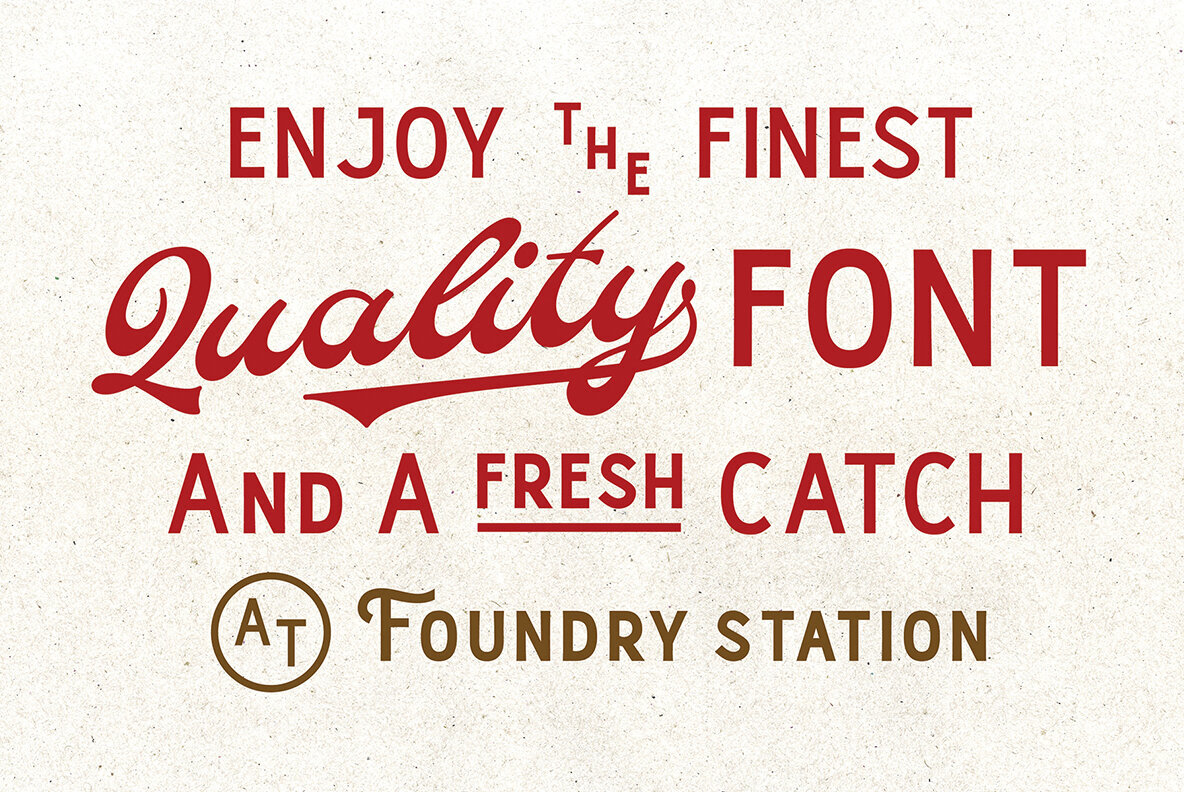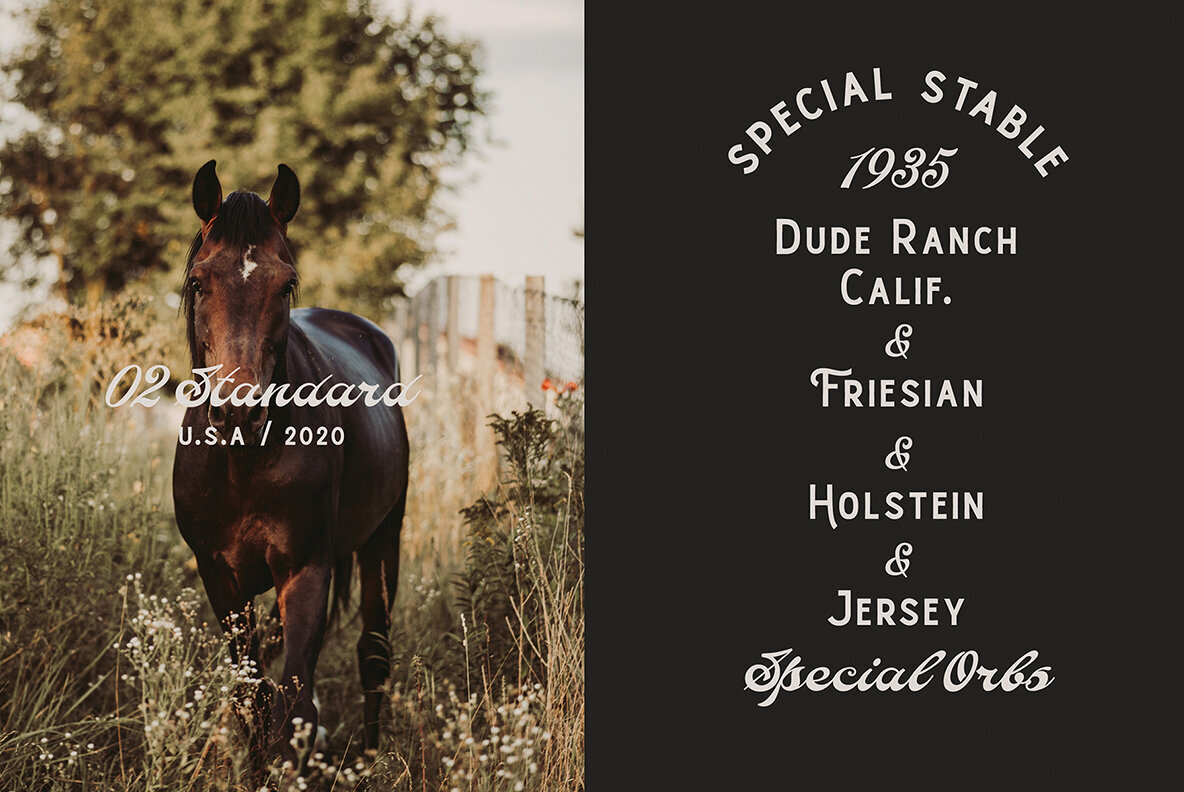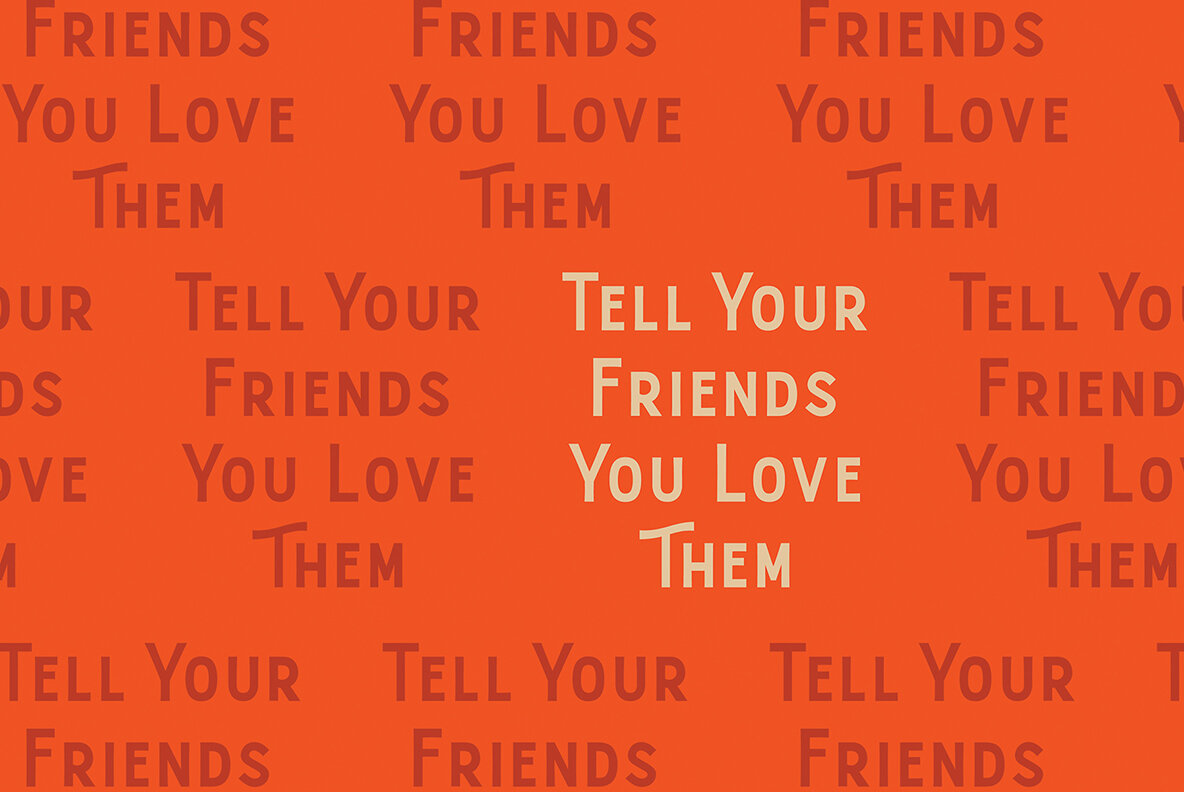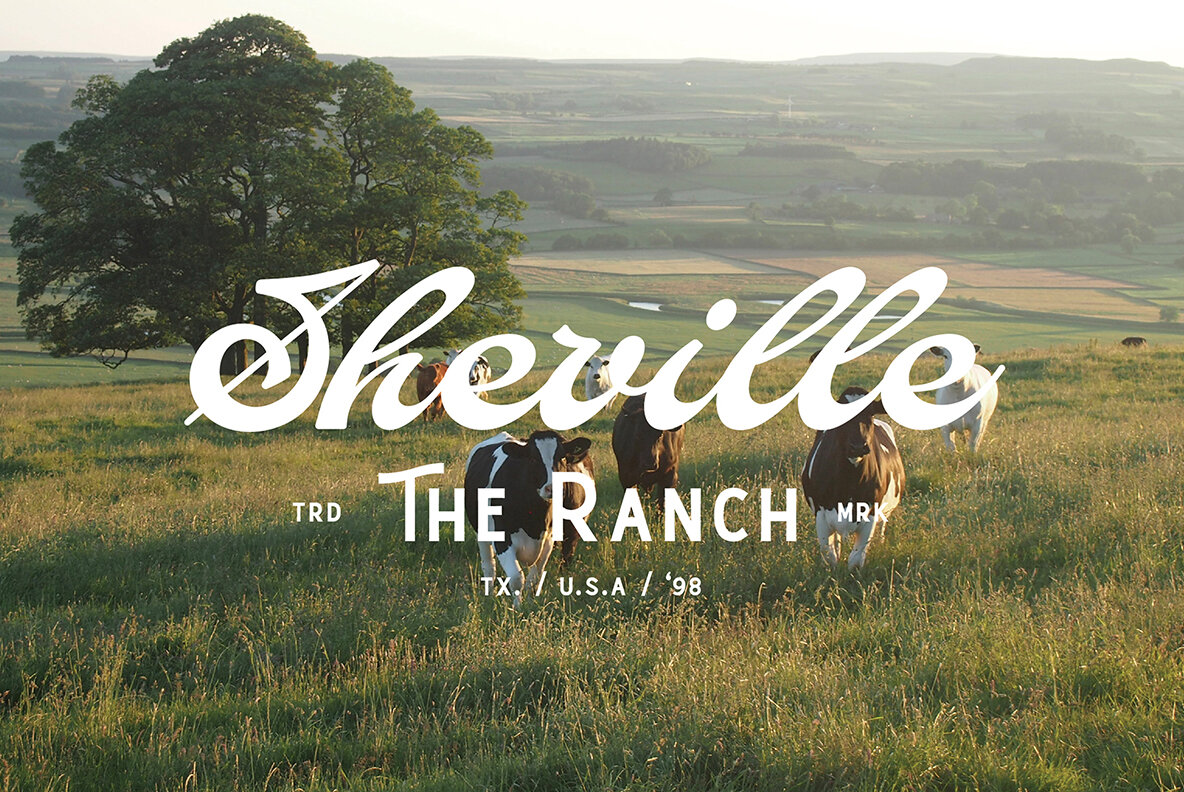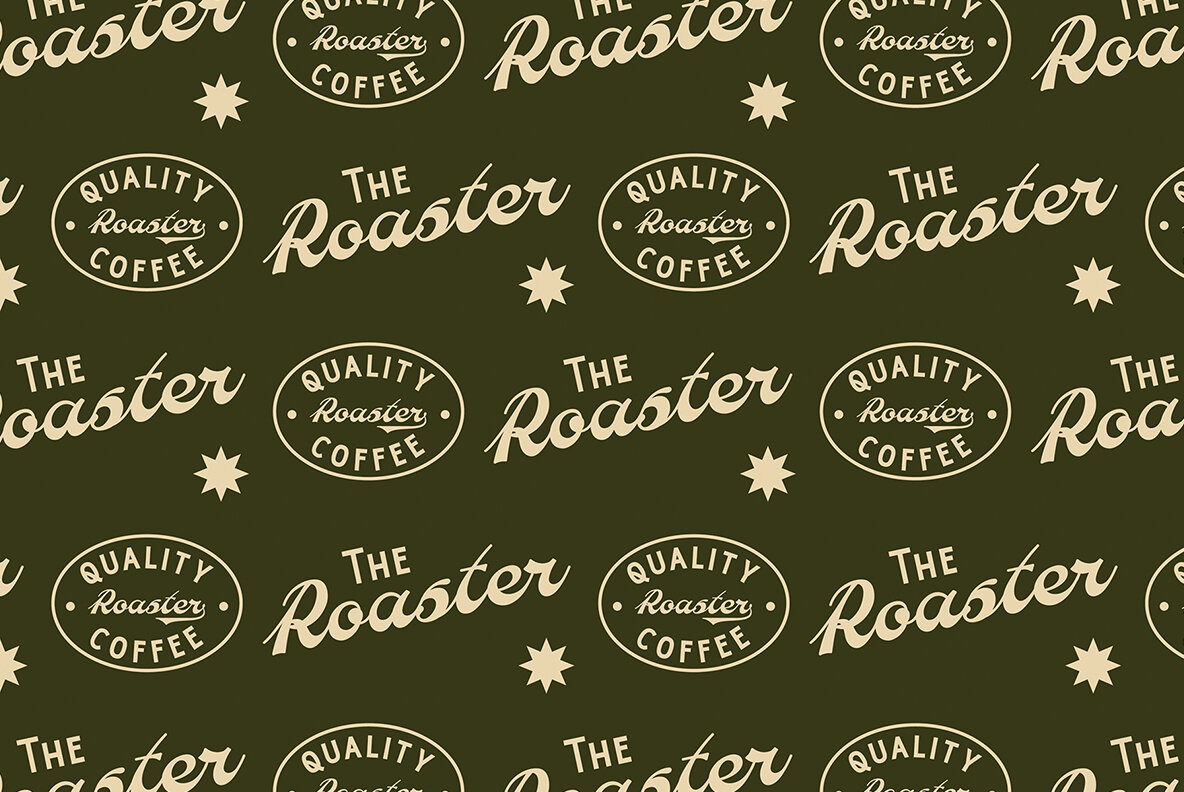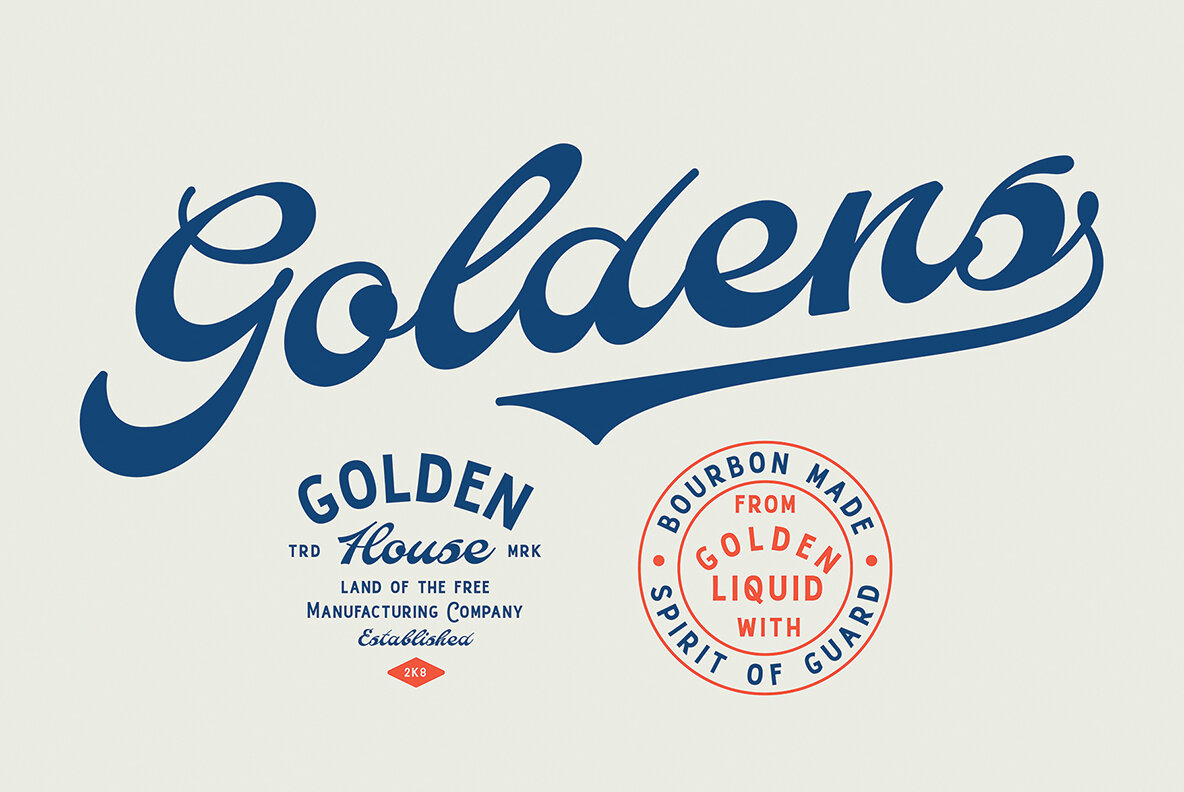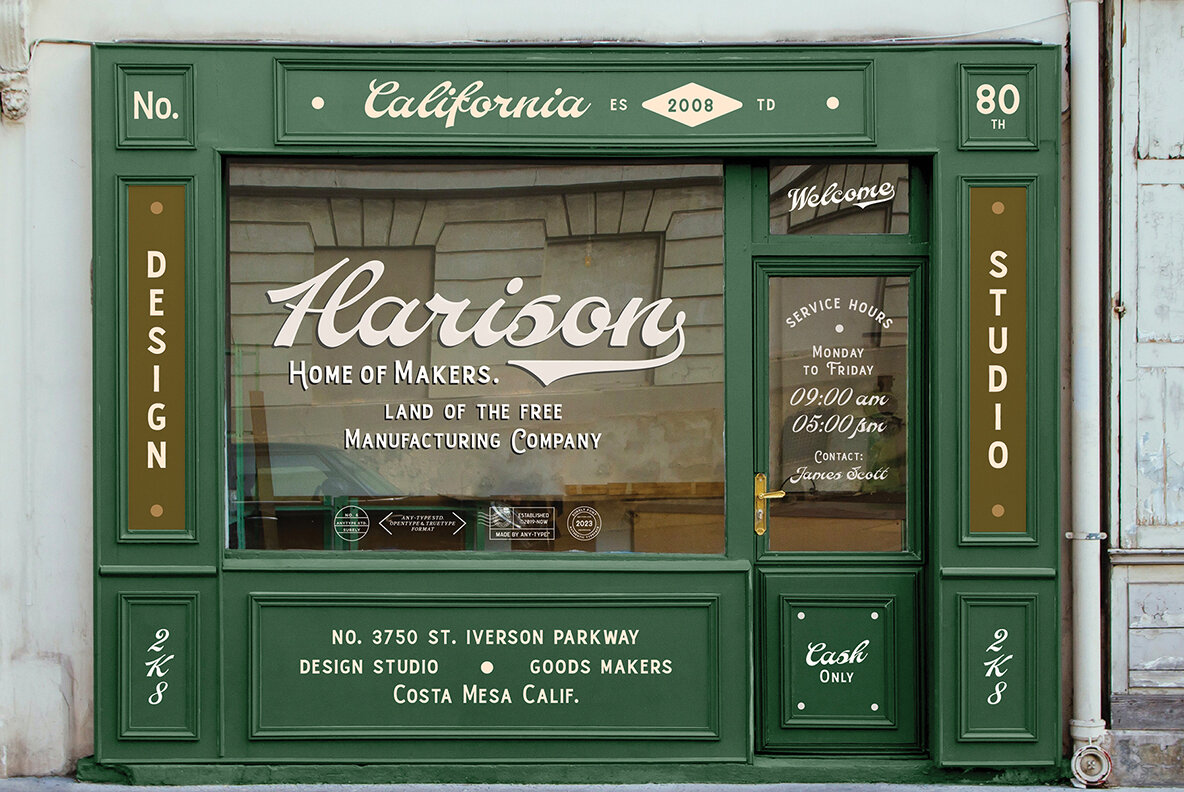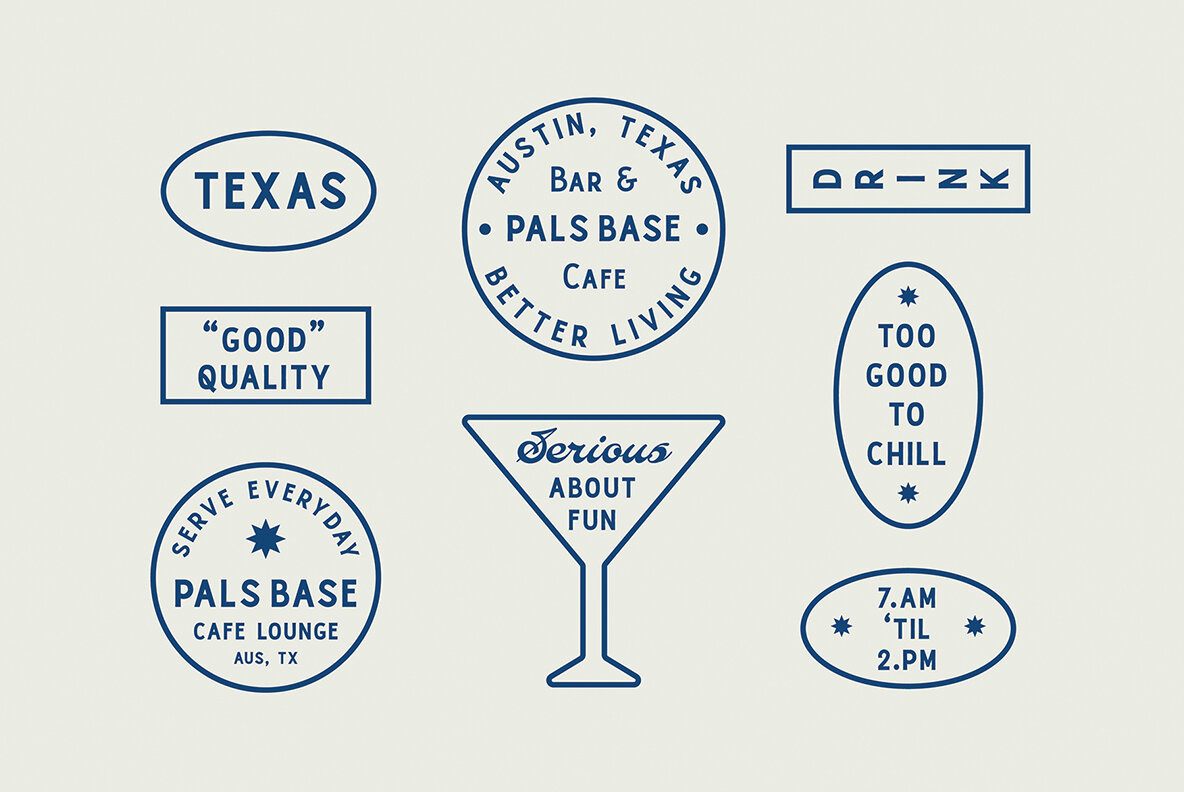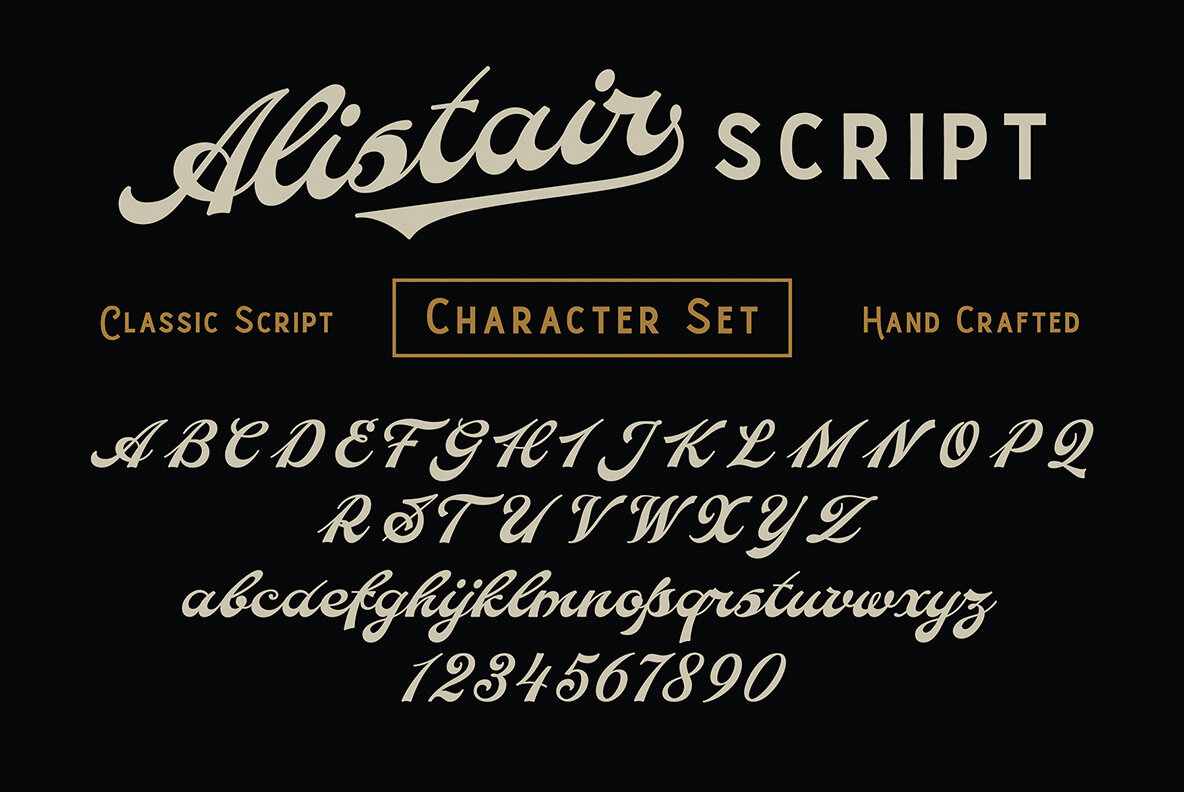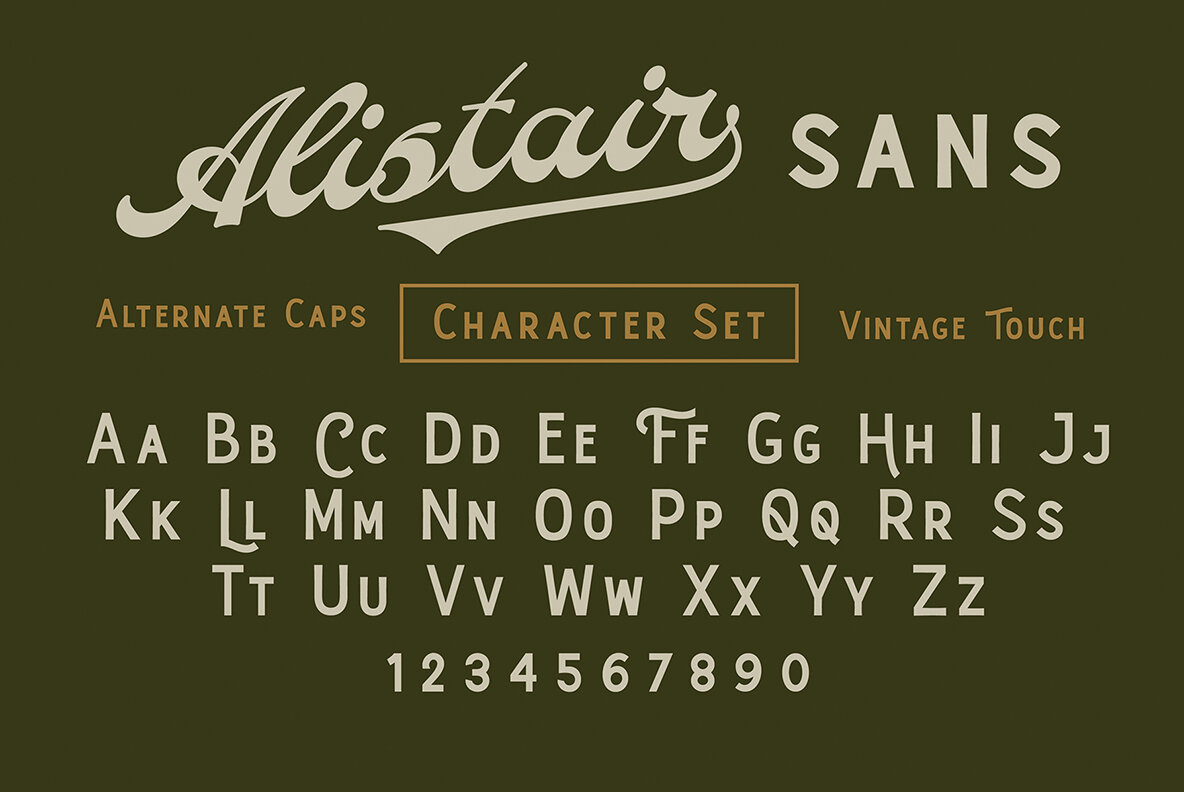
AT Alistair Font Duo
The Alistair Font Duo combines handmade, vintage script and sans serif styles, available in Regular and Semi Bold weights. This collection draws inspiration from classic Western culture and custom motorcycle culture, enhanced by a vintage touch. It’s ideal for creating standout vintage designs.AT Alistair Font Duo: Vintage Script and Sans